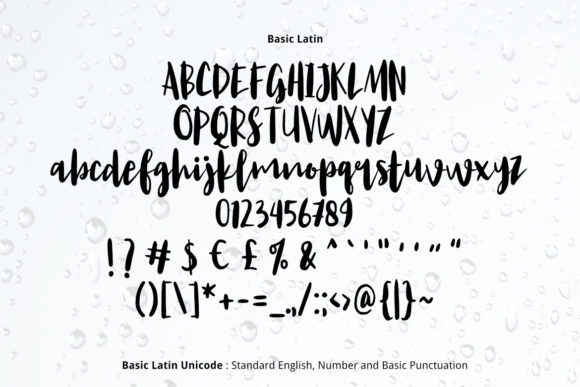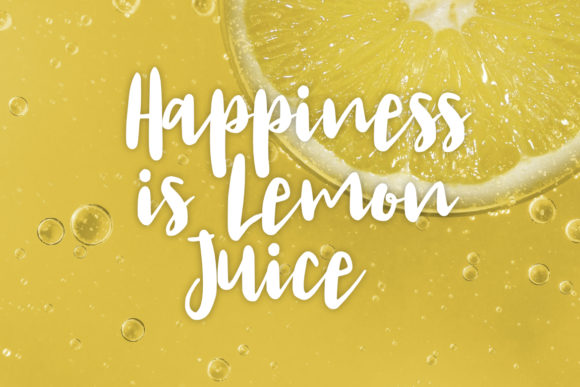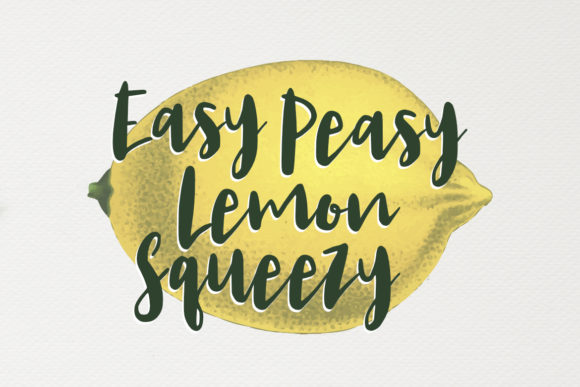
Lemon Juice Font
About Lemon Juice Font
Lemon Juice is a relaxed, smooth and flowing handwritten font. No matter the topic, this font will be an incredibly asset to your fonts’ library, as it has the potential to elevate any creation.